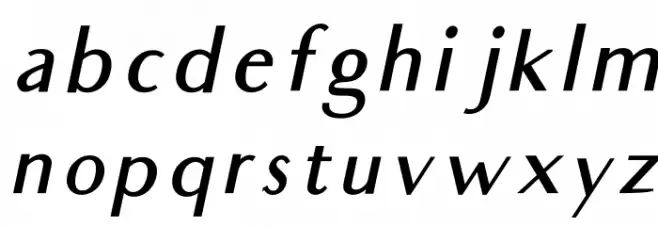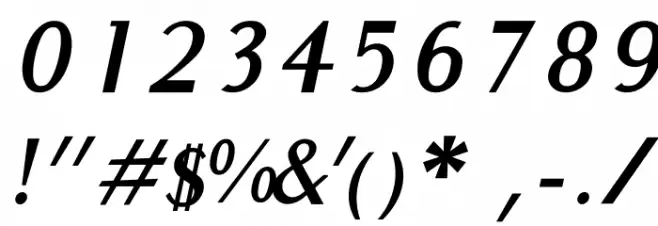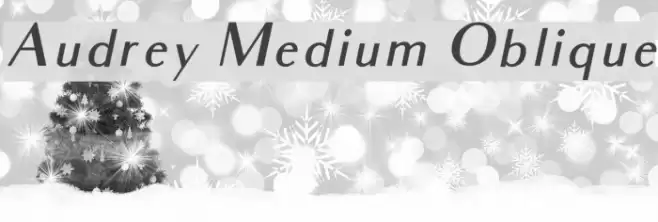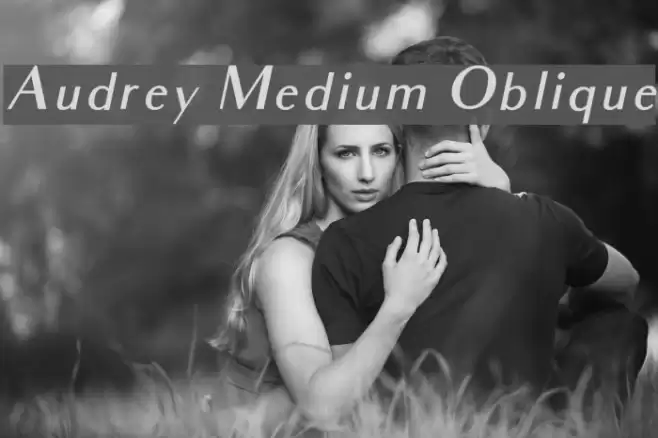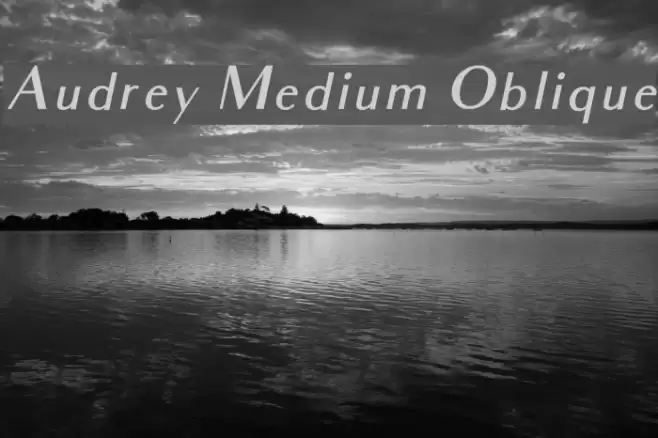
Audrey Medium Oblique
This font features a sleek and elegant design with a slight oblique slant, giving it a sophisticated and modern appearance. The characters are well-defined with clean lines and a subtle contrast in stroke thickness, adding to its readability and aesthetic appeal. The uppercase letters are bold and commanding, while the lowercase letters maintain a graceful flow. The numerals are distinct and balanced, ensuring clarity in numerical data. Special characters are crafted with precision, complementing the overall style of the font.
A sleek, oblique font with elegant lines and subtle contrast.